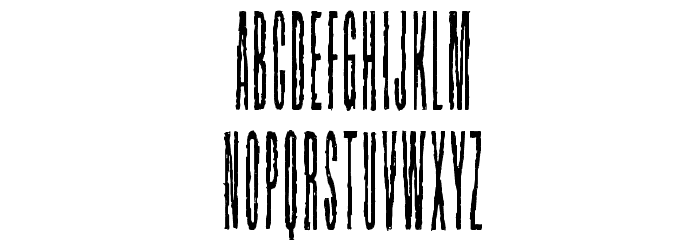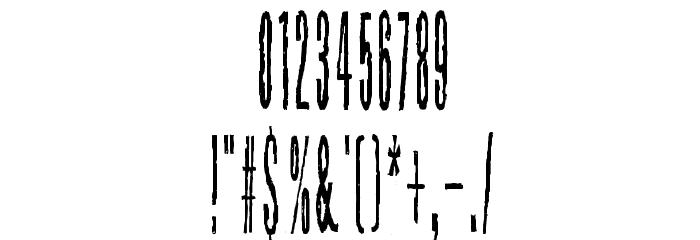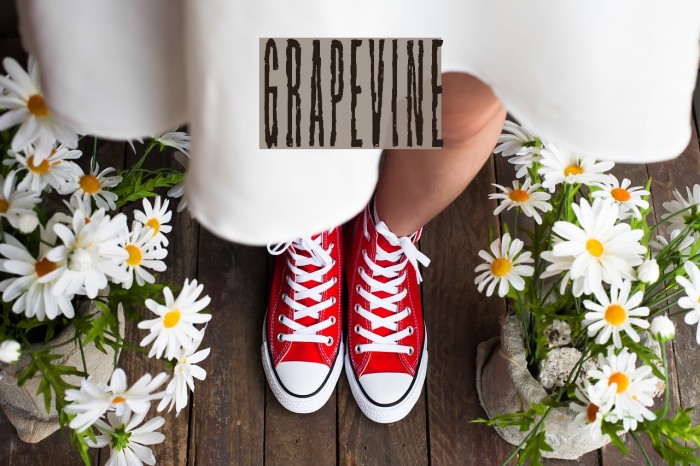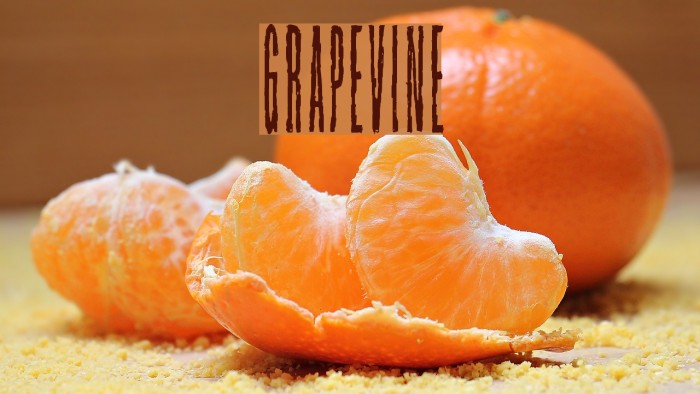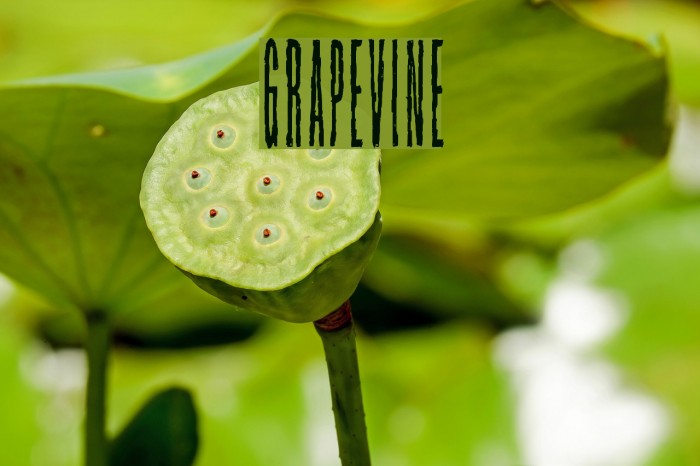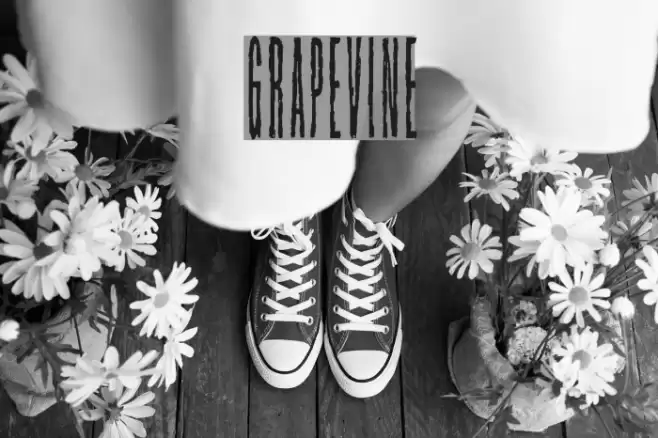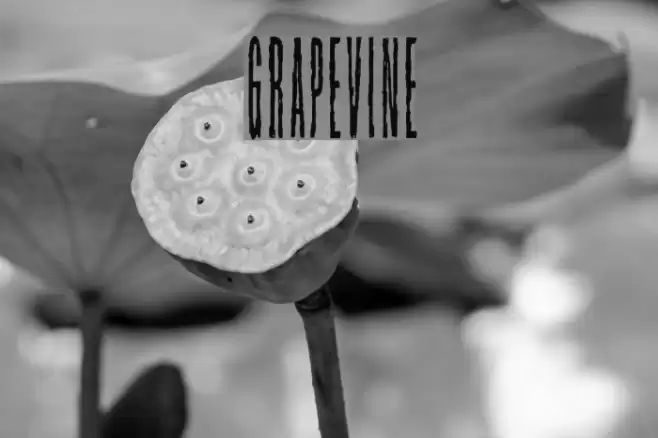
Grapevine Font
This font features a distinctive, elongated style with a slightly distressed appearance, giving it a vintage and rustic feel. The characters are tall and narrow, with uneven edges that suggest a hand-crafted or stamped look. The uppercase and lowercase letters maintain a consistent height, contributing to a uniform appearance across text. Numbers and special characters share the same distressed quality, enhancing the overall aesthetic. This font's unique texture and style make it stand out, ideal for projects that require a touch of nostalgia or a handcrafted vibe.
A tall, narrow font with a distressed, vintage appearance.
- Proposed Projects: Ideal for vintage-themed posters, rustic branding, packaging design, and creative projects that require a handcrafted look.
- Character Spacing: Tight
- Overall Style: Vintage